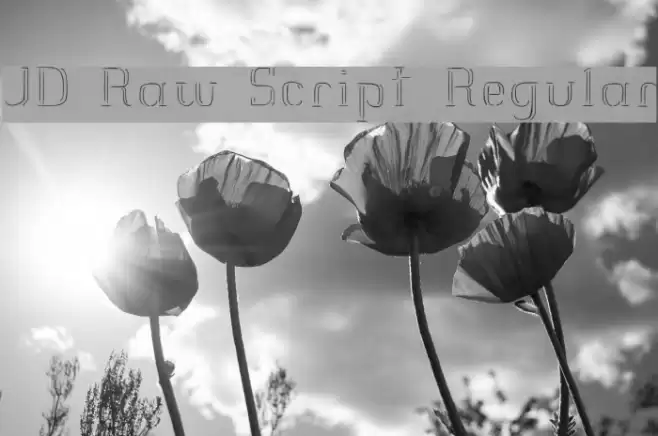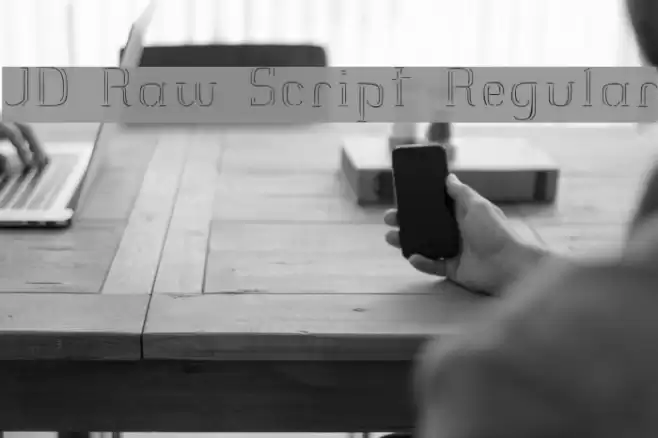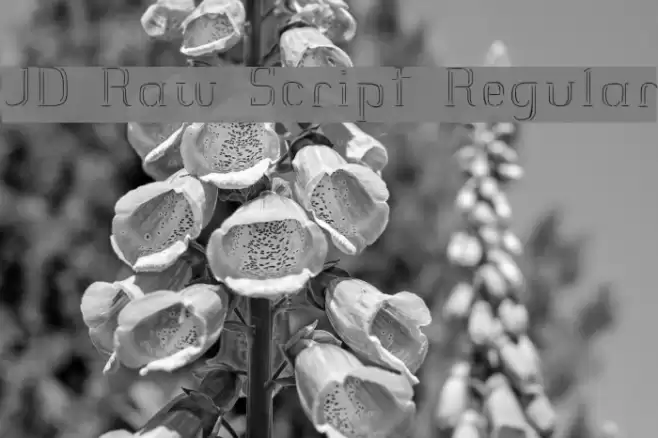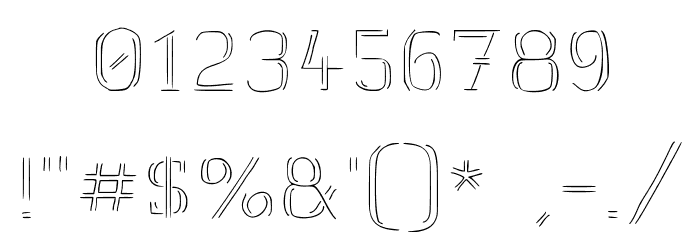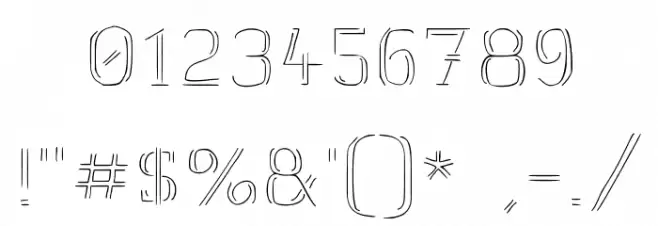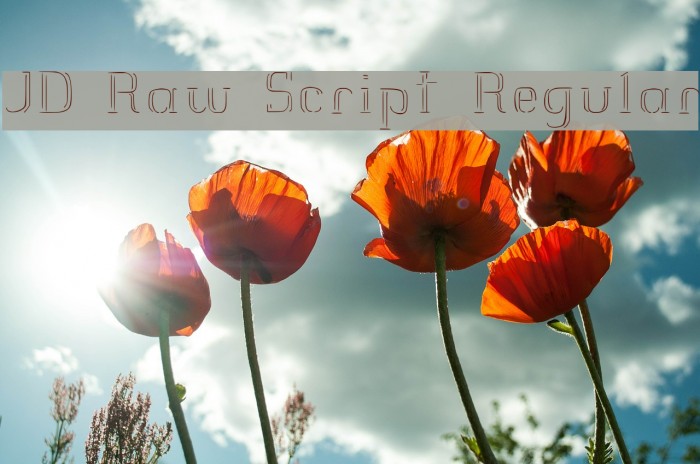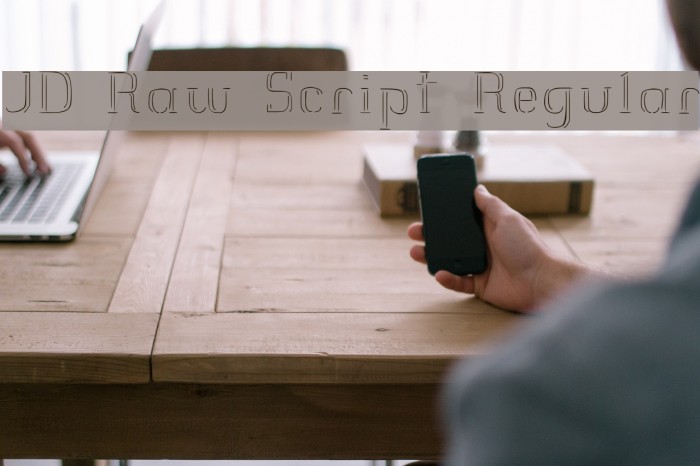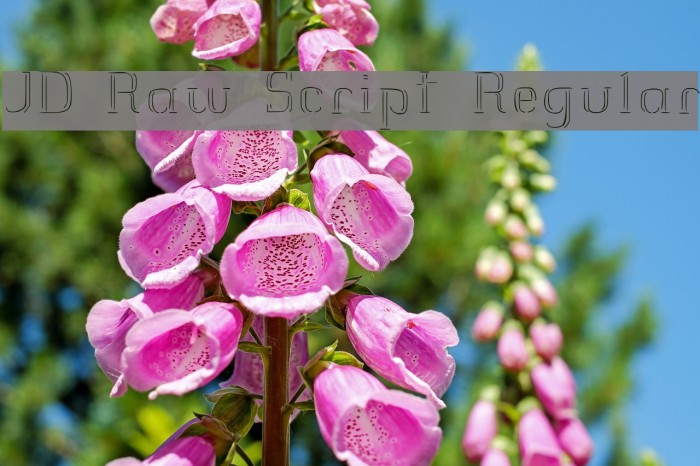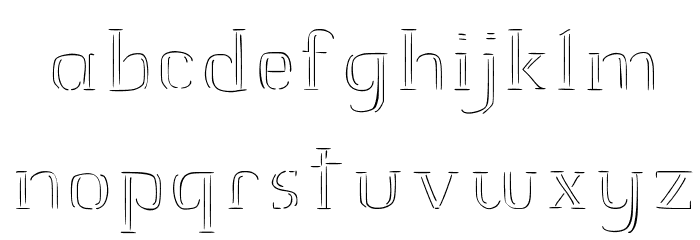
JD Raw Script Regular Font
JD Raw Script Regular Description
This font features a unique blend of modern and vintage styles, characterized by its outlined, sketch-like appearance. The uppercase and lowercase letters maintain a consistent height, creating a harmonious flow. The strokes are thin and uniform, giving an airy and open feel. The numbers and special characters follow the same design principles, ensuring a cohesive look across all elements. The font's distinct style makes it stand out, while still being legible and versatile for various design applications.
A modern, outlined font with a sketch-like, airy appearance from Uncategorized fonts.
- Proposed Projects: Ideal for creative projects such as branding, posters, and artistic designs where a unique and modern touch is desired.
- Use Case: Logos, Headlines, Artistic designs